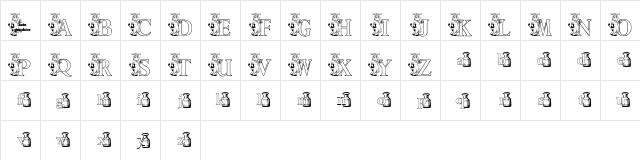
KG MOO Regular Font Preview
KG MOO Regular
KG MOO Regular Font Details
Design Context for KG MOO Typeface
KG MOO is a composed and adaptable typeface that performs quietly and consistently across a wide range of design contexts.